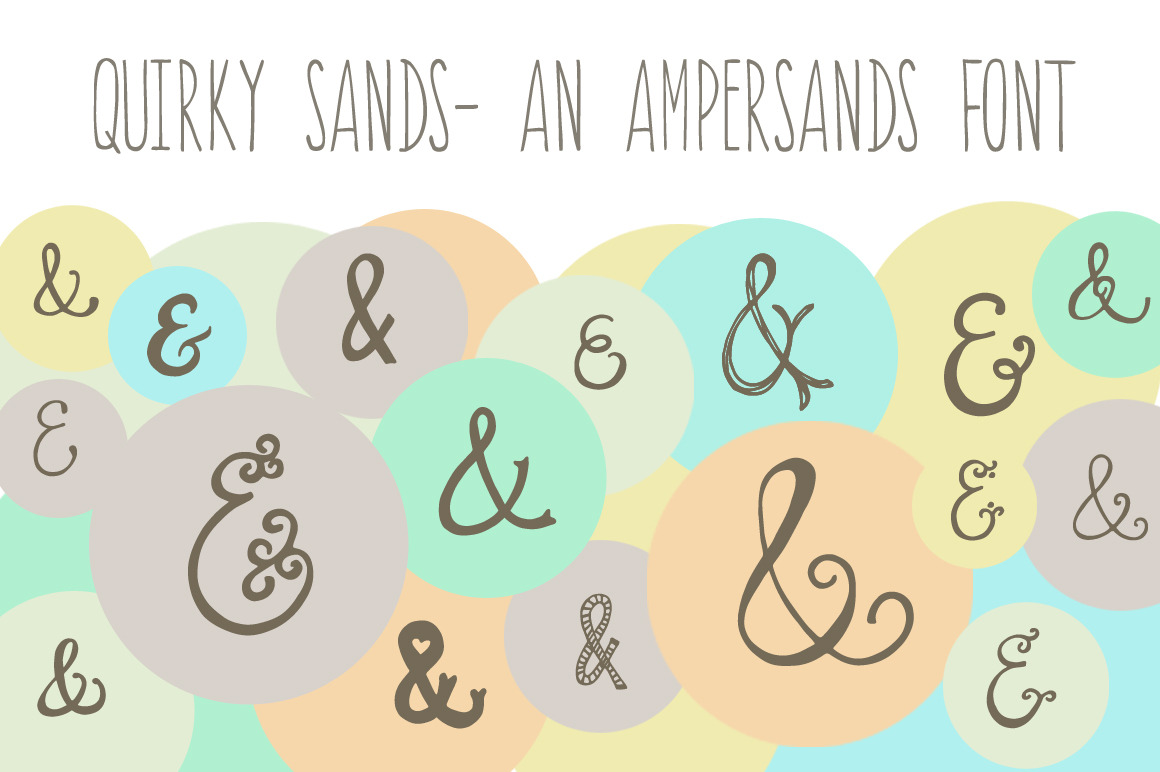
Quirky Sands- An Ampersand Font
This hand-drawn ampersand font lives up to its name! It's a sure fit for save the dates, wedding invitations, and other fun design projects requiring that perfect &. The uses for these little "sands" are virtually endless! Included are 58 different ampersands with a unique, hand-drawn feel. These pair well with hand-drawn looking typefaces.